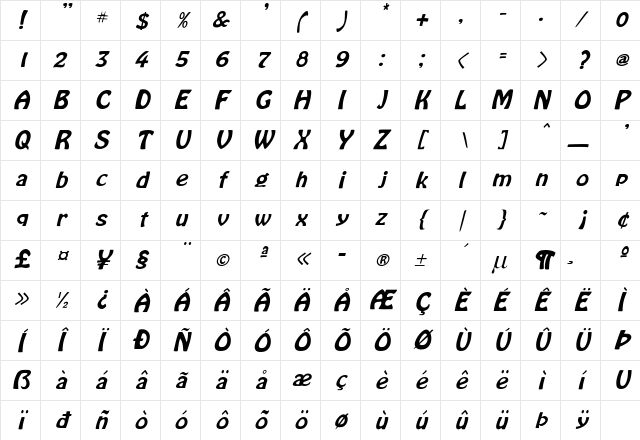
LaCosta Italic
LaCosta Family
Design Context for LaCosta
LaCosta is a composed and adaptable typeface that performs quietly and consistently across a wide range of design contexts. The slanted form adds forward momentum and visual energy.
Pro Tip: Use LaCosta for emphasis, pull quotes, and subheadings where its slanted energy can add rhythm to the layout.